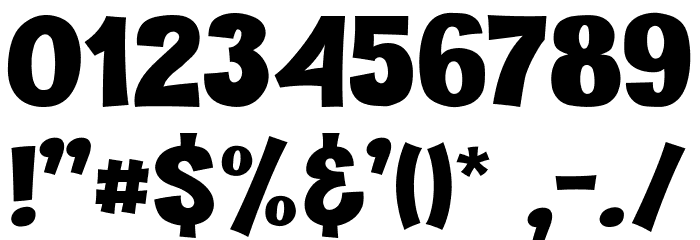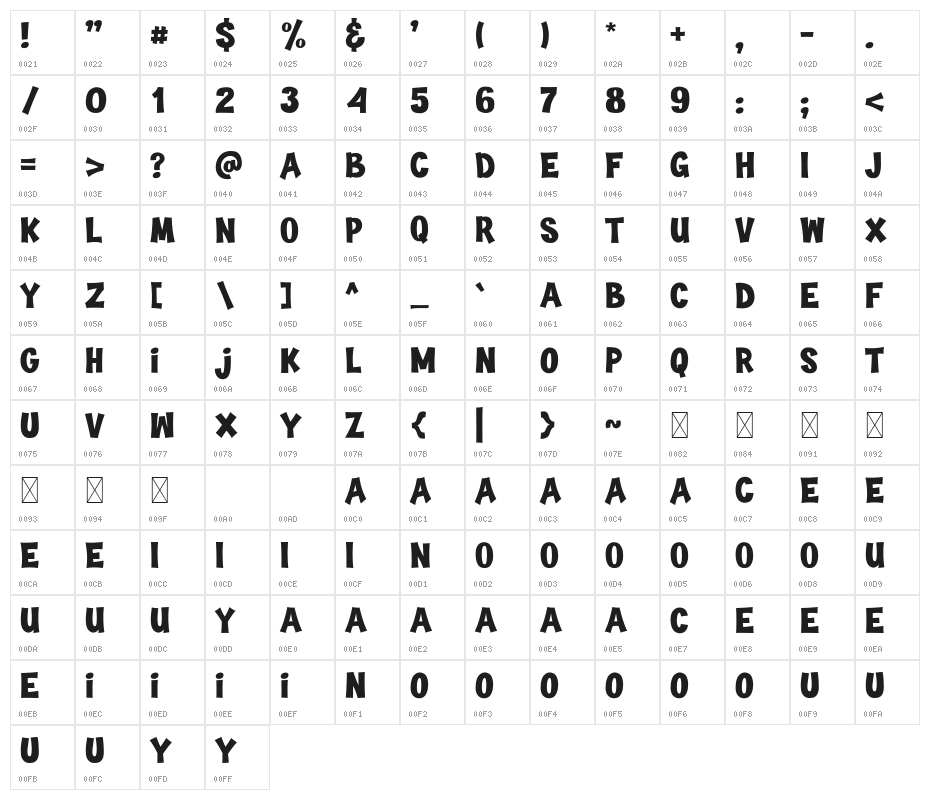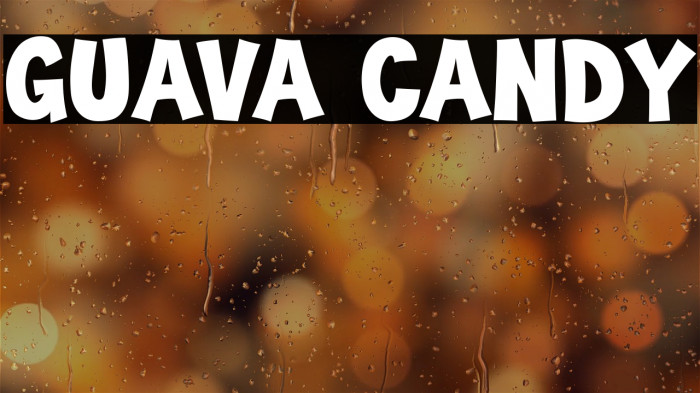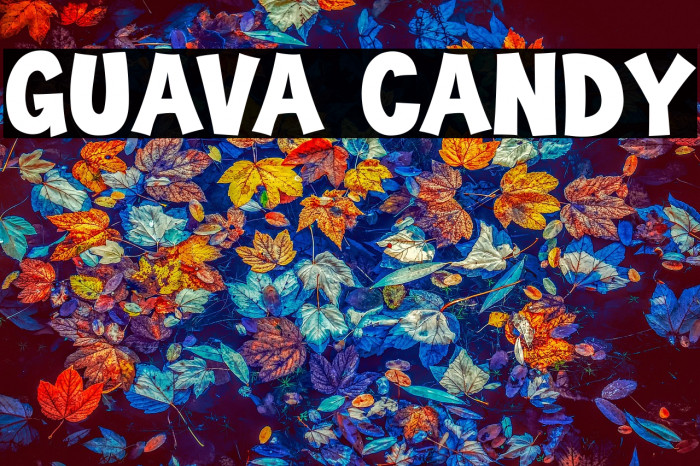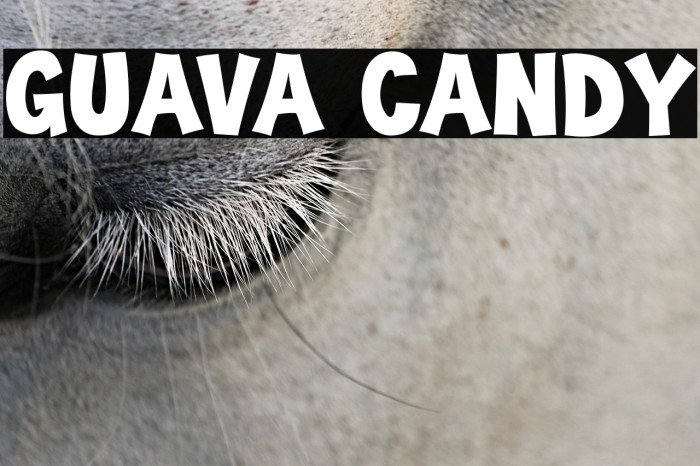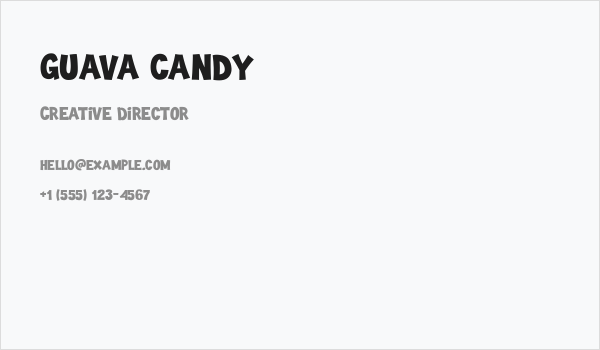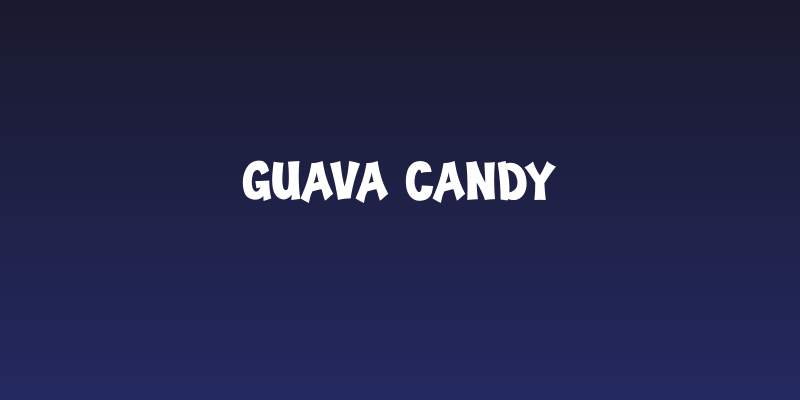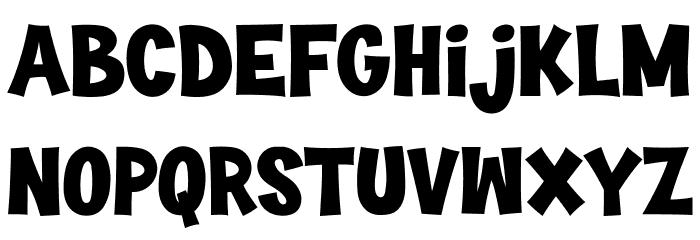
Guava Candy Font
Guava Candy Description
This playful and bold font features exaggerated curves and a whimsical style that captures attention. The characters are thick and slightly irregular, giving them a hand-drawn appearance. The uppercase letters are robust and dynamic, while the lowercase letters maintain a consistent style with a touch of quirkiness. Numbers and special characters follow the same bold and lively design, making the font suitable for a variety of creative applications. The overall impression is one of fun and energy, perfect for projects that require a standout, informal typeface.
| Proposed Projects | Ideal for children's books, playful branding, posters, and event invitations. |